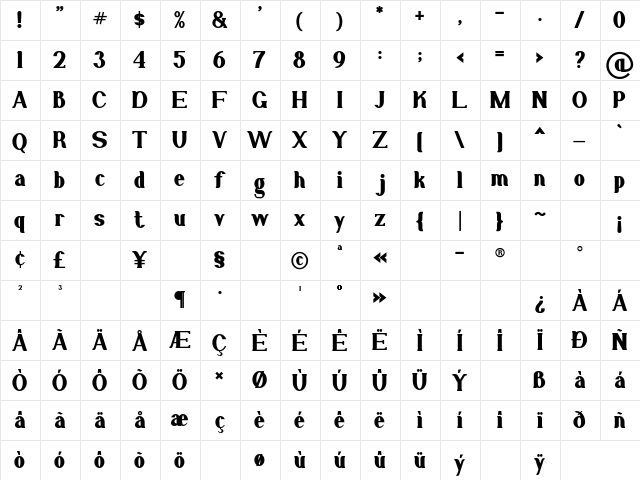
Gillalo Bold
Design Context for Gillalo Typeface
Gillalo is a composed and adaptable typeface that performs quietly and consistently across a wide range of design contexts. Its bold stroke weight gives it real presence on the page.